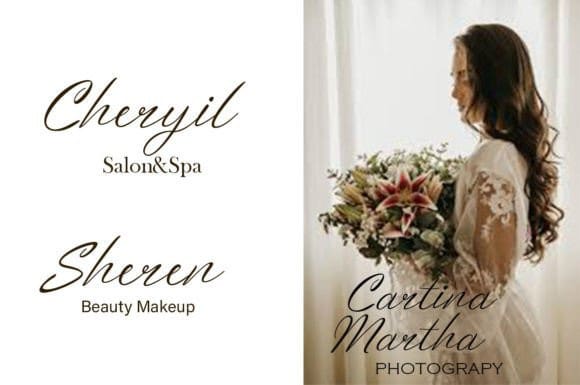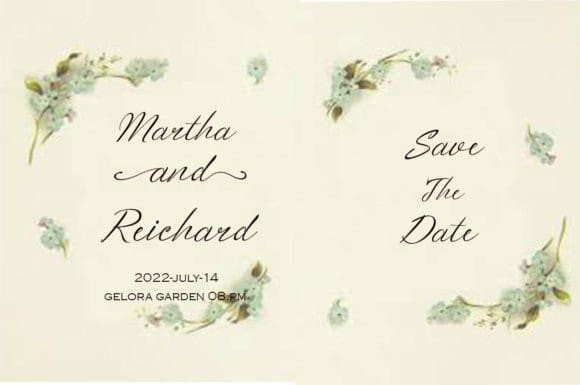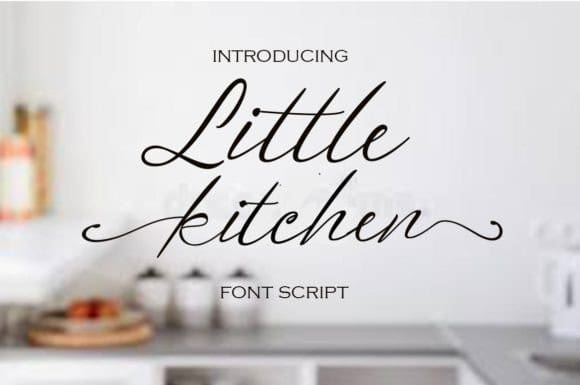
Little Kitchen Font
Little Kitchen Font is a clean and beautiful script font. No matter the topic, this font will be an incredible asset to your fonts’ library, as it has the potential to elevate any creation.